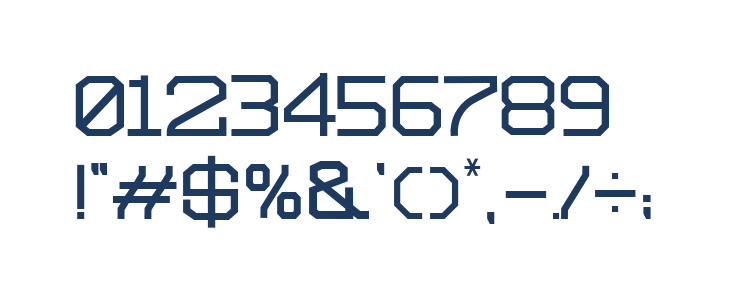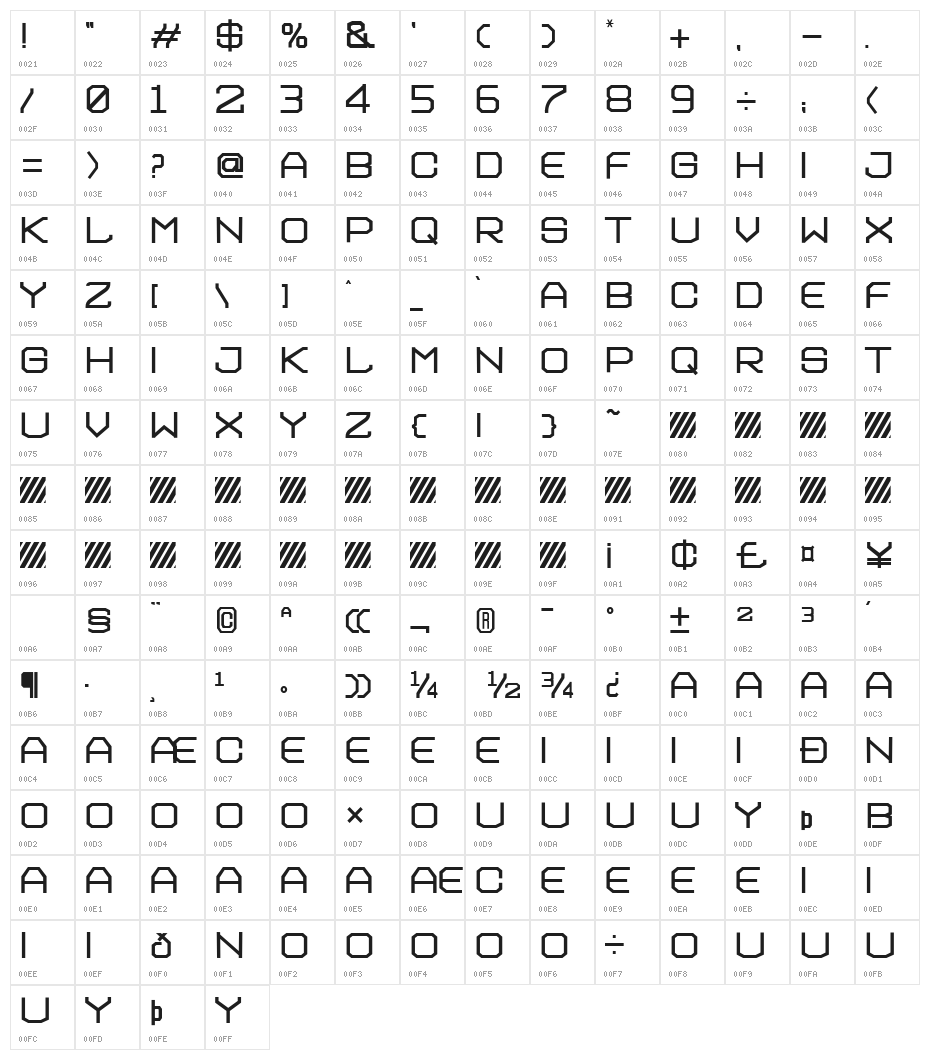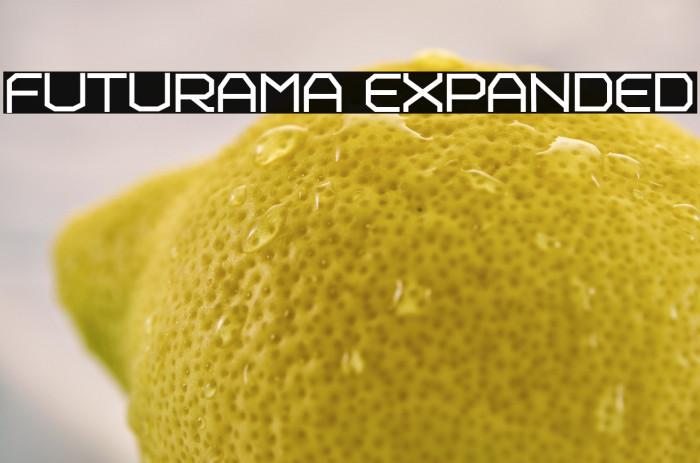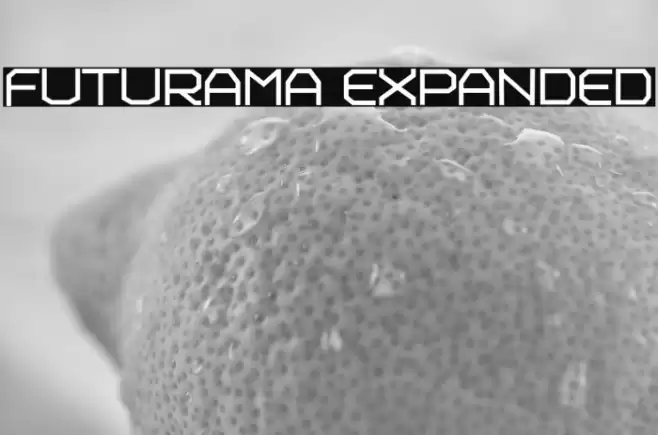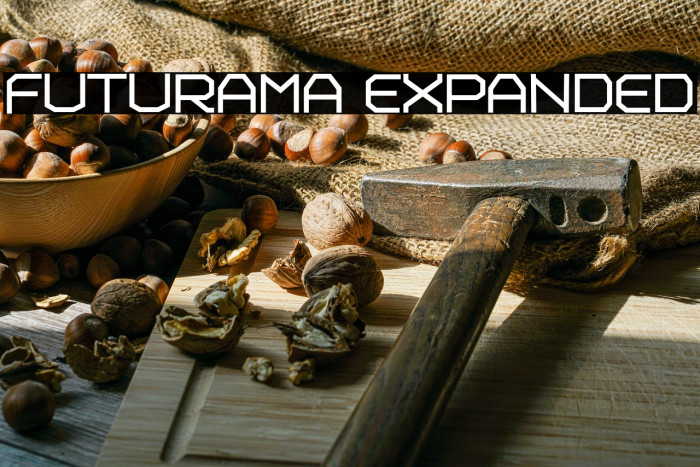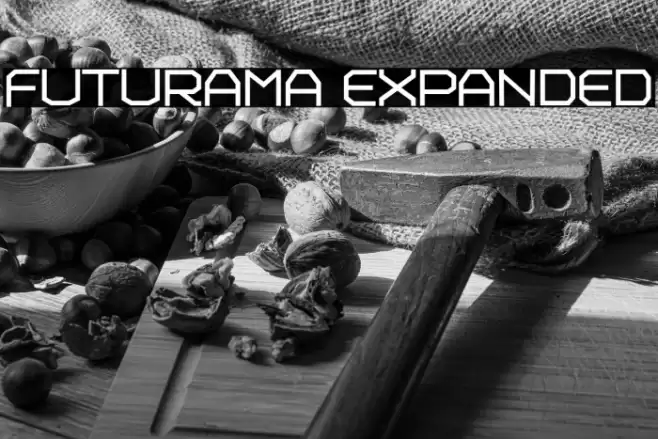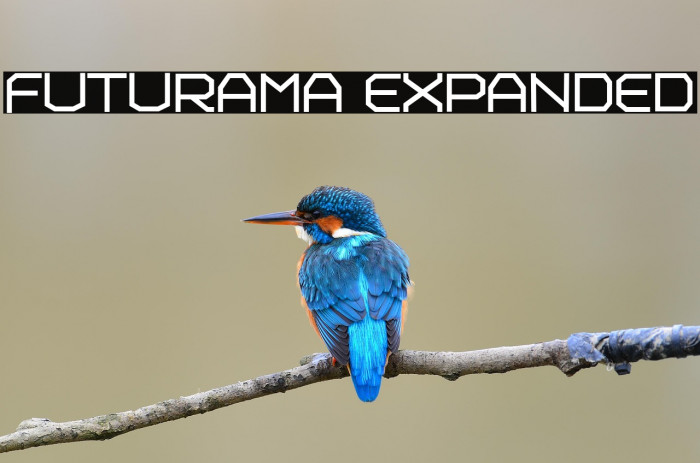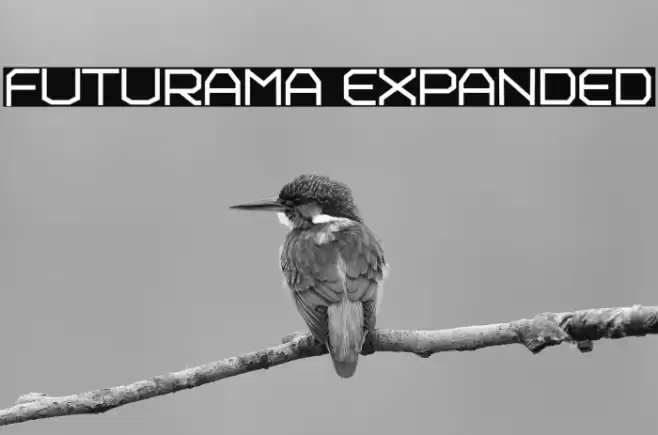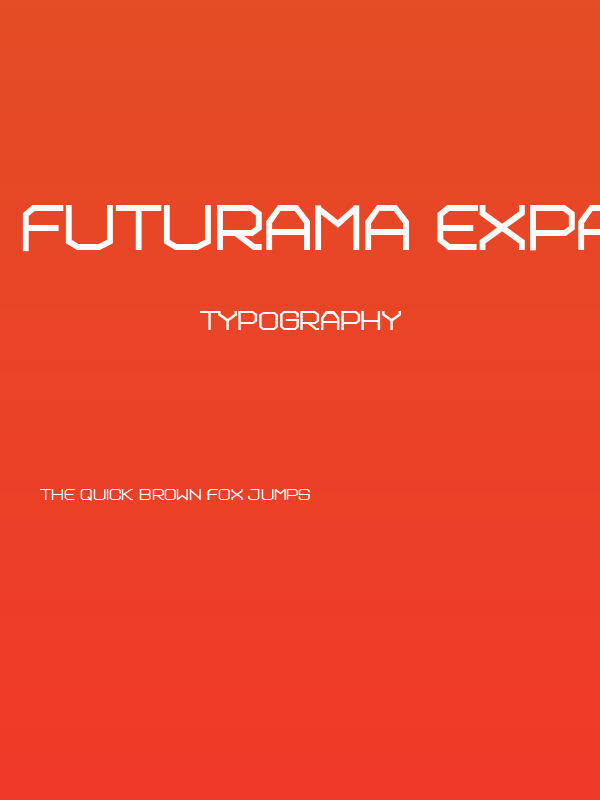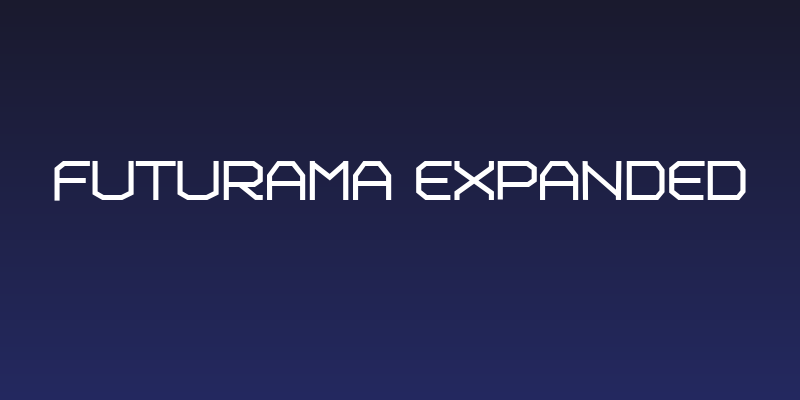
Futurama Expanded Font
Futurama Expanded Description
This font features a futuristic and geometric design, characterized by its sharp angles and clean lines. The uppercase and lowercase letters maintain a consistent structure, with a uniform height that creates a cohesive appearance. The numerals are distinct and easily readable, complementing the overall style. Special characters are designed with the same angular precision, making them fit seamlessly with the alphanumeric characters. The font's expanded width gives it a bold presence, making it suitable for attention-grabbing headlines and display purposes.
| Proposed Projects | Ideal for sci-fi themed projects, technology branding, video game interfaces, and futuristic posters. |